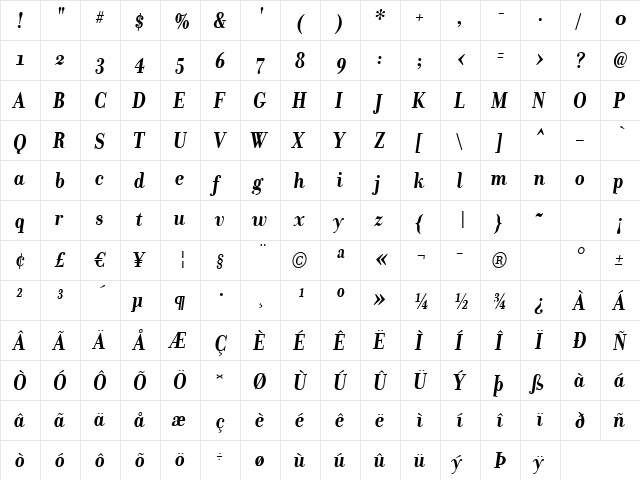
Donatora OSF BoldItalic Font Preview
Donatora OSF BoldItalic
Design Context for Donatora OSF Typeface
Donatora OSF offers clean, dependable letterforms without strong stylistic allegiance, making it a practical choice for designers who need flexibility. The slanted form adds forward momentum and visual energy. Its bold stroke weight gives it real presence on the page.